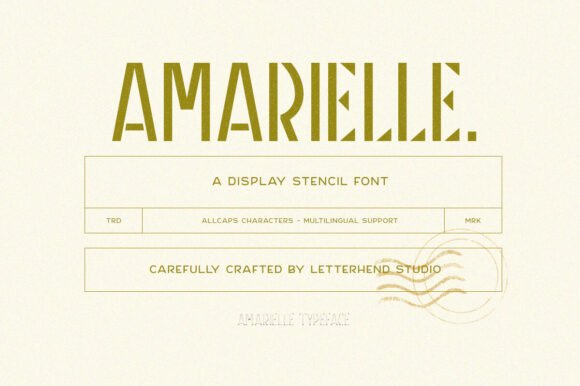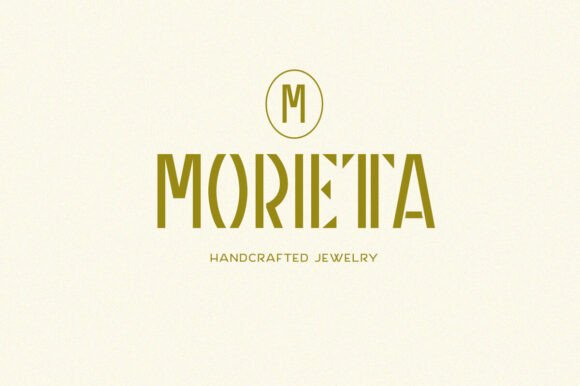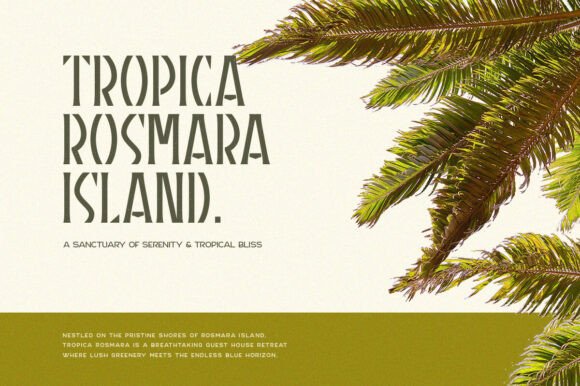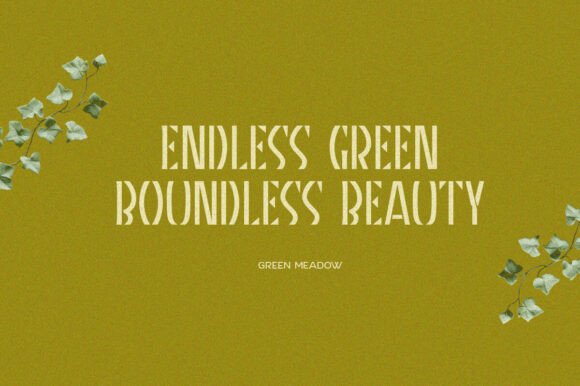
Amarielle Font
About the Amarielle Font
From logos to headlines, the Amarielle Font is the perfect choice for making a lasting impression. Amarielle is a bold, modern stencil display font designed for those who dare to stand out. With its sharp edges, industrial aesthetics, and military-inspired precision, this all-caps typeface delivers a strong, commanding presence. Perfect for branding, posters, editorial design, labels, signage, and high-impact visuals, Amariellle blends urban grit with contemporary elegance. Its multilingual support and versatility make it ideal for projects that demand a clean yet rugged typographic style.
Amarielle excels in headlines, short impactful statements, and logo design where its bold presence commands attention. It is highly effective for branding projects targeting a sophisticated, yet edgy audience—think high-end streetwear, automotive, or technology companies. Avoid using Amarielle for body text or lengthy passages; its strong character overwhelms readability in smaller sizes or continuous use.
Pairing Amarielle with a clean sans-serif like Montserrat for supporting text offers a strong contrast and visual balance. For a more refined aesthetic, consider a subtle serif like Lora to soften the impact and add a touch of classic elegance. A geometric sans-serif such as Futura would provide a modern, structured counterpoint for projects seeking a minimalist, industrial feel.
Amarielle’s core personality is bold, assertive, and modern, conveying a sense of authority and sophistication with an underlying edge. Its industrial-inspired design makes it ideal for conveying strength, reliability, and high-quality craftsmanship.
Amarielle Font Usage Examples
Amarielle Font Example